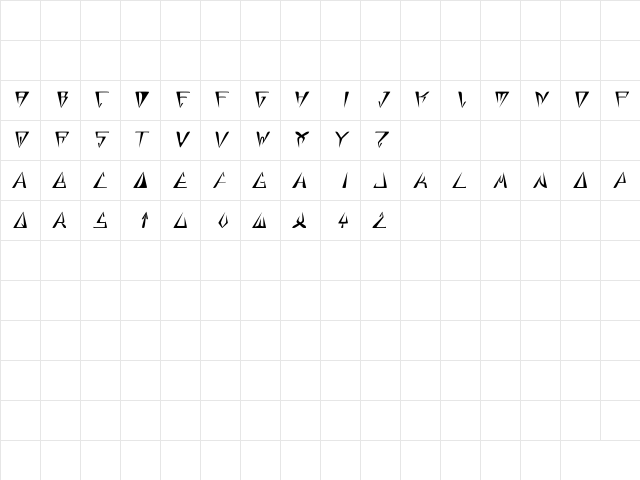
GlOrY ThIn BoLd iTaLiC
Design Context for GlOrY ThIn Typeface
GlOrY ThIn is a composed and adaptable typeface that performs quietly and consistently across a wide range of design contexts. The dynamic lean of this cut emphasises speed and emphasis in any layout. Its bold stroke weight gives it real presence on the page.
Pro Tip: Try GlOrY ThIn for annotation and caption copy alongside an upright companion — the contrast in angle creates a dynamic but ordered typographic system.